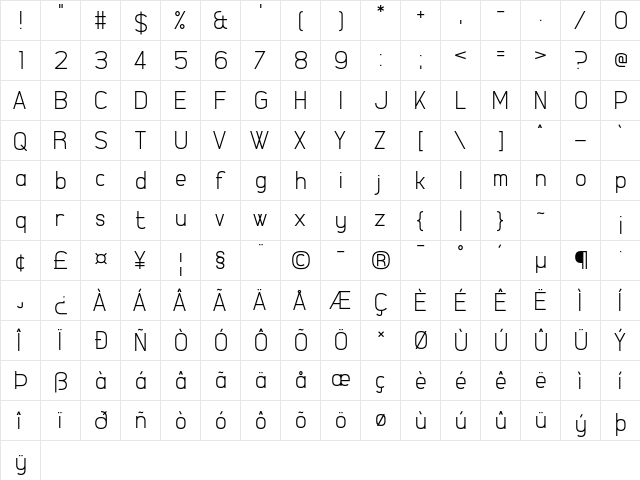
Figure Things Regular
Design Context for Figure Things Typeface
Figure Things takes a measured approach to typography — its balanced proportions and neutral character make it a reliable workhorse for both digital and print work. Its slender proportions lend an understated elegance to any composition.
Pro Tip: Use Figure Things in both headline and body roles to test its range before committing to a single application.